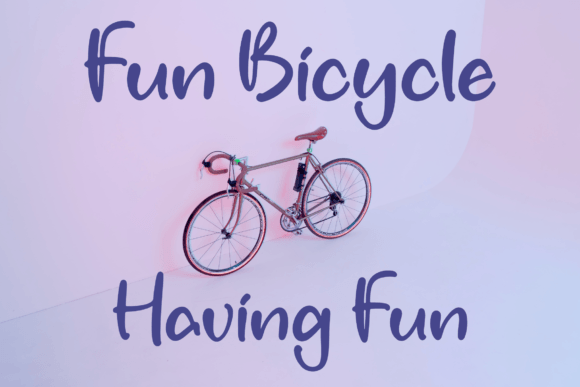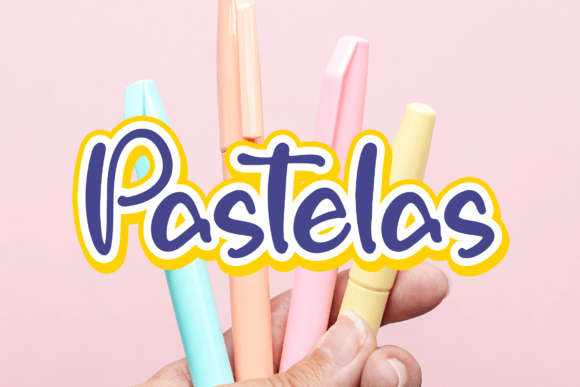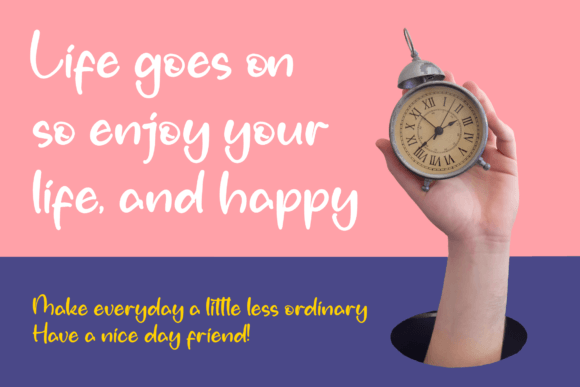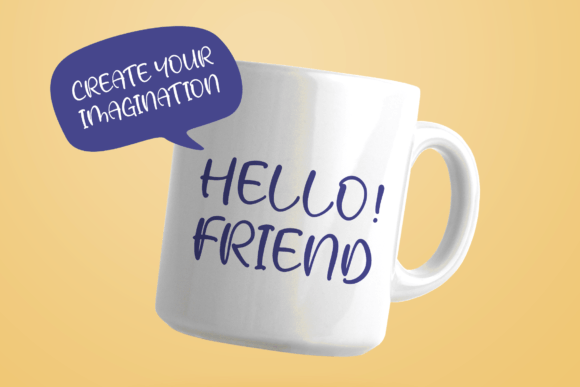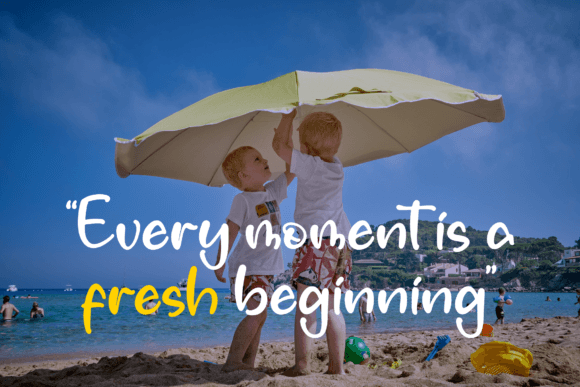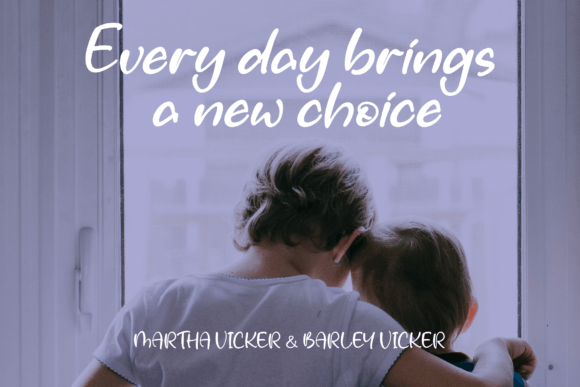
Carymoon Basekine Font: A Playful Handwritten Style for Your Creative Projects
Are you a designer or crafter looking for a unique and playful font to elevate your creative projects? Look no further than the Carymoon Basekine Font! This beautiful handwritten font is perfect for adding a personal touch to any project, from logos and branding to homeware designs, product packaging, and more.
What is Carymoon Basekine Font?
Carymoon Basekine Font is a carefully crafted handwritten font that exudes a playful and charming vibe. Its unique lettering style makes it perfect for creative projects that require a touch of personality and whimsy. The font is designed to be versatile and can be used for a wide range of applications, from digital designs to print materials.
Features of Carymoon Basekine Font
- Playful and Handwritten Style: Carymoon Basekine Font boasts a playful and handwritten style that adds a personal touch to any project.
- Unique Lettering: The font features unique lettering that sets it apart from other fonts, making it perfect for designers and crafters looking for something distinctive.
- Versatile: Carymoon Basekine Font is versatile and can be used for a wide range of projects, from logos and branding to homeware designs, product packaging, and more.
- Easily Readable: Despite its playful style, the font is easily readable, making it perfect for use in both digital and print materials.
Uses of Carymoon Basekine Font
Carymoon Basekine Font is suitable for a wide range of projects, including:
- Logos and Branding: Use the font to create unique and memorable logos and branding materials that stand out from the crowd.
- Homeware Designs: Add a personal touch to your homeware designs, such as cushions, tote bags, and mugs, with this beautiful handwritten font.
- Product Packaging: Elevate your product packaging with a touch of whimsy and personality using Carymoon Basekine Font.
- Mugs and Quotes: Use the font to create inspiring quotes and designs for mugs, posters, and other home decor items.
- Posters and Shopping Bags: Create eye-catching posters and shopping bags that showcase your brand’s personality with this playful font.
- T-Shirts and Apparel: Design unique and stylish t-shirts and apparel with Carymoon Basekine Font.
- Book Covers and Name Cards: Use the font to create beautiful book covers, name cards, and other stationery items.
- Invitation Cards and Greeting Cards: Add a touch of elegance and whimsy to your invitation cards and greeting cards with this beautiful handwritten font.
- Labels and Photography: Use Carymoon Basekine Font to create beautiful labels and watermarks for your photography projects.
- Special Events: Create unique and memorable designs for special events, such as weddings, birthdays, and anniversaries, with this playful font.
Why Choose Carymoon Basekine Font?
There are many reasons why you should choose Carymoon Basekine Font for your creative projects. Here are a few:
- Unique and Playful Style: The font boasts a unique and playful style that adds a personal touch to any project.
- High-Quality Design: Carymoon Basekine Font is designed with high-quality and precision, ensuring that it looks great in any project.
- Easily Customizable: The font is easily customizable, allowing you to adjust it to suit your project’s needs.
- Time-Saving: With Carymoon Basekine Font, you can save time and effort in creating unique and beautiful designs.
Carymoon Basekine Font is a beautiful and playful handwritten font that is perfect for designers and crafters looking to add a personal touch to their creative projects. Its unique lettering style, versatility, and readability make it suitable for a wide range of applications, from logos and branding to homeware designs, product packaging, and more. With its high-quality design and ease of customization, Carymoon Basekine Font is an excellent choice for anyone looking to elevate their designs and create something truly special.